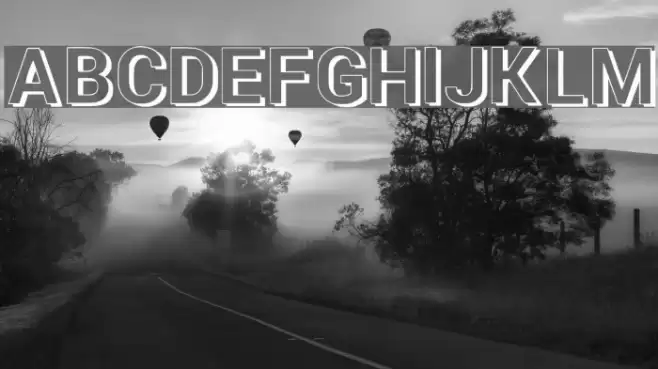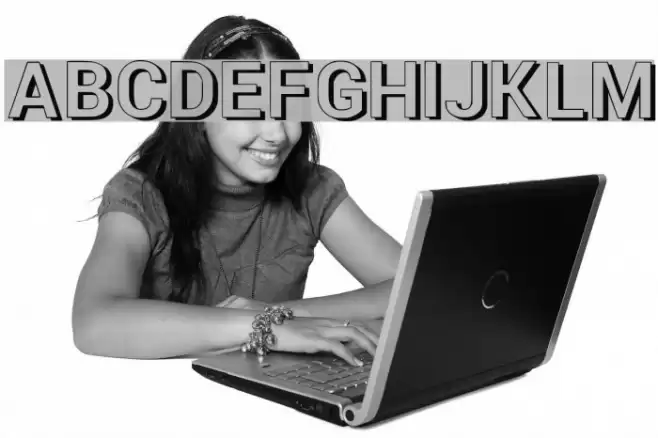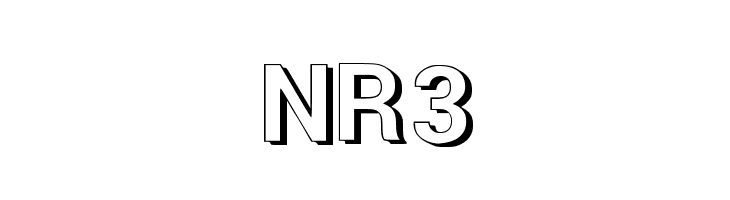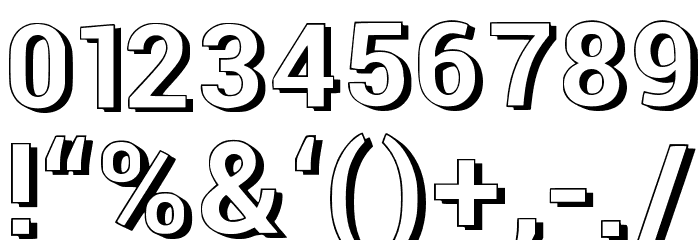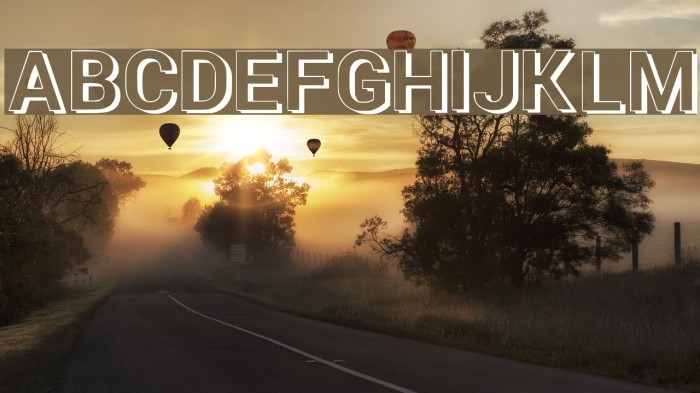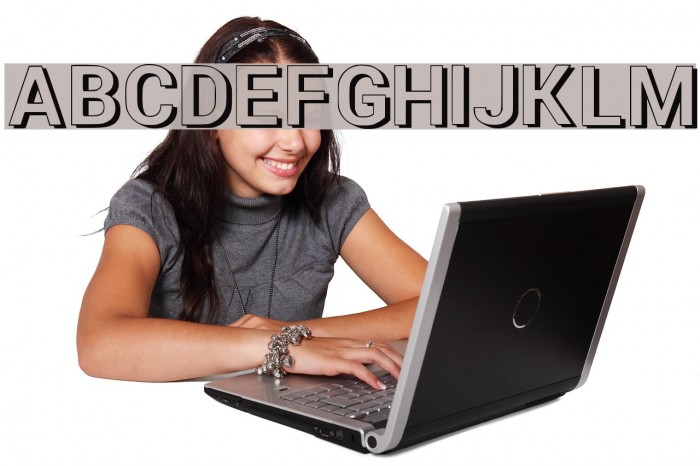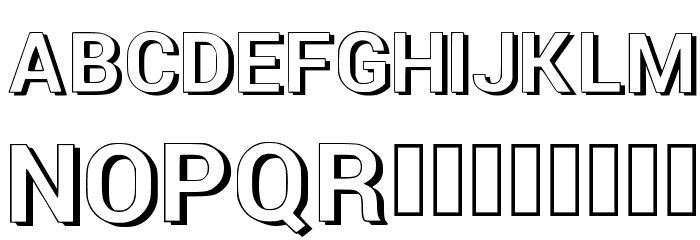
NewRetroStyle3d Font
NewRetroStyle3d Description
This font features a bold, three-dimensional style with a retro flair, characterized by its thick outlines and shadow effects that create a sense of depth. The uppercase letters are prominent and impactful, making it ideal for attention-grabbing headlines. The numerals and special characters maintain the same bold and structured design, ensuring consistency across all text elements. The font's geometric shapes and clean lines give it a modern twist while retaining a nostalgic feel, reminiscent of vintage signage or classic arcade games.
A bold, retro 3D font with thick outlines and shadow effects from Uncategorized fonts.
- Proposed Projects: Ideal for retro-themed posters, video game graphics, vintage branding, and eye-catching headlines.
- Overall Style: Retro